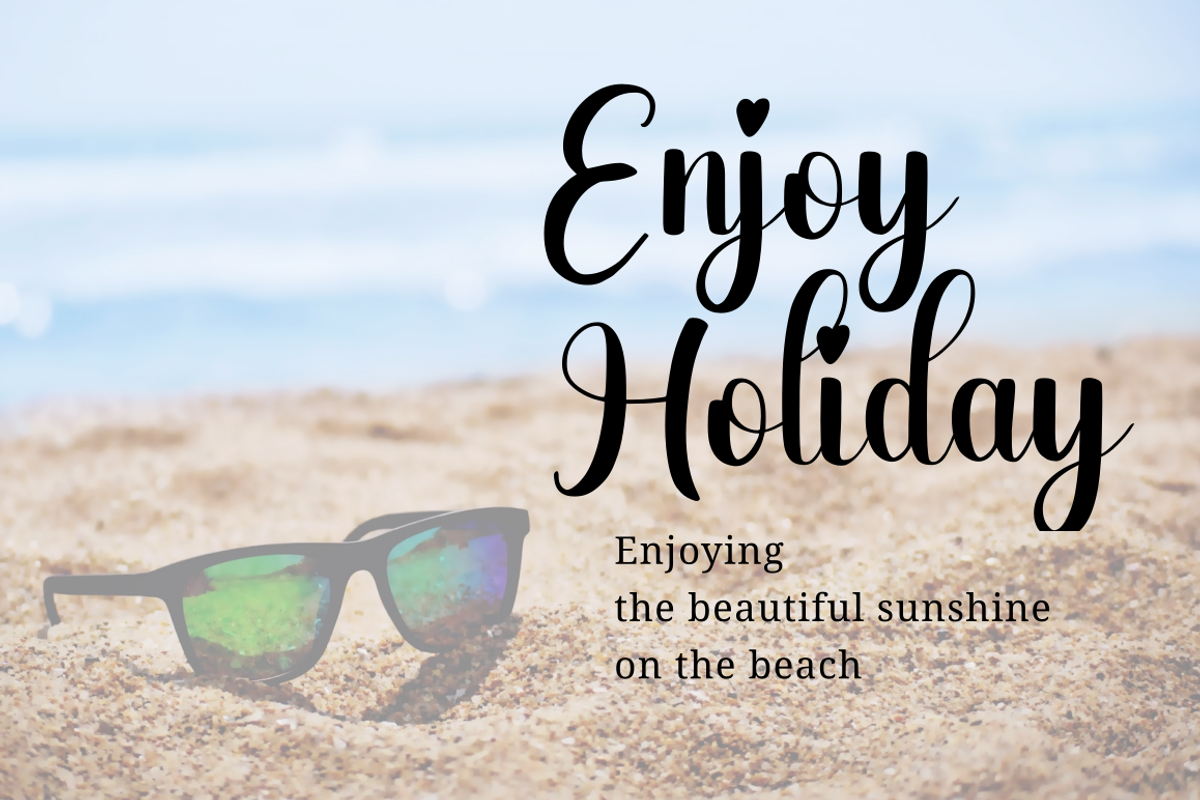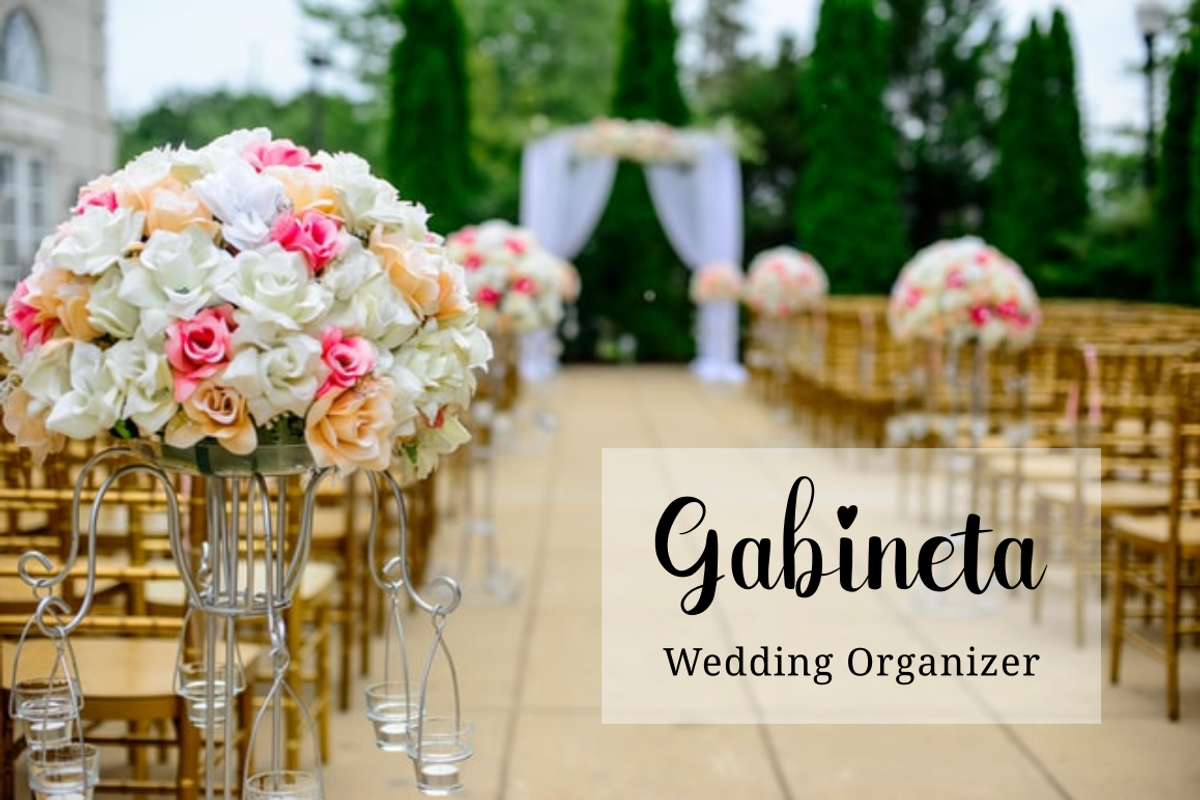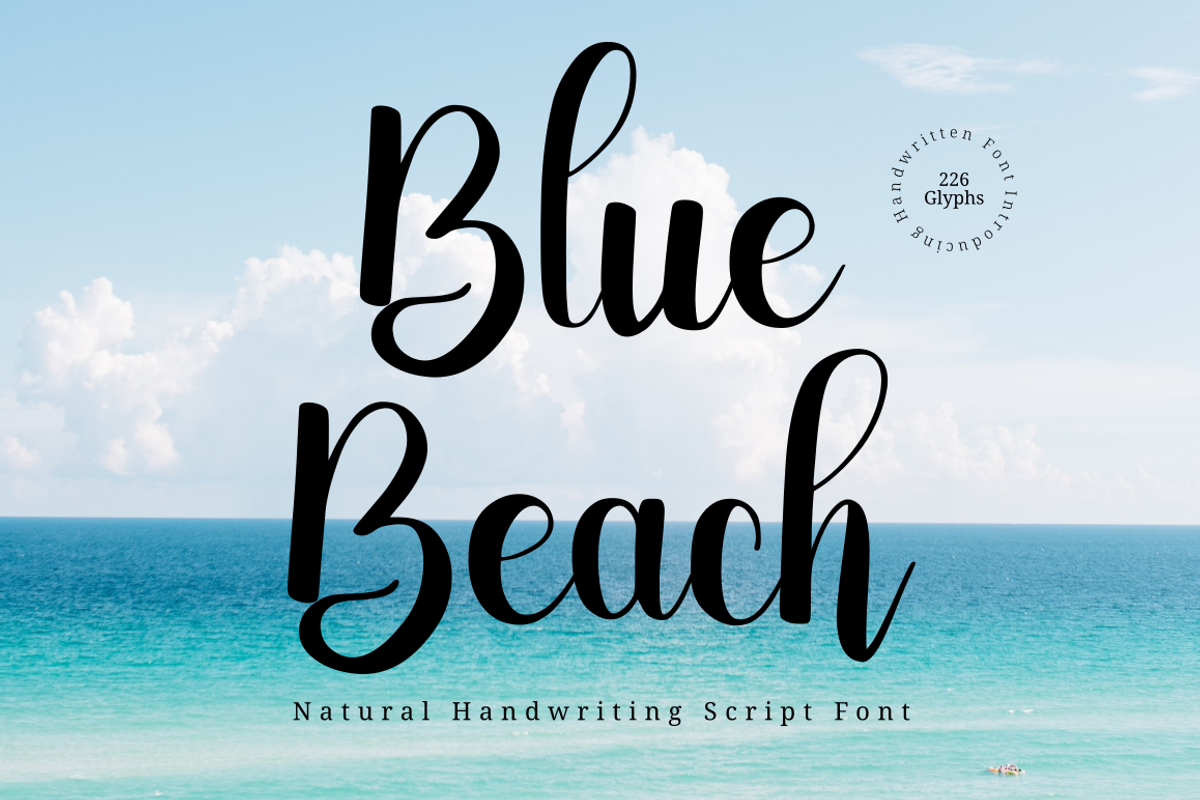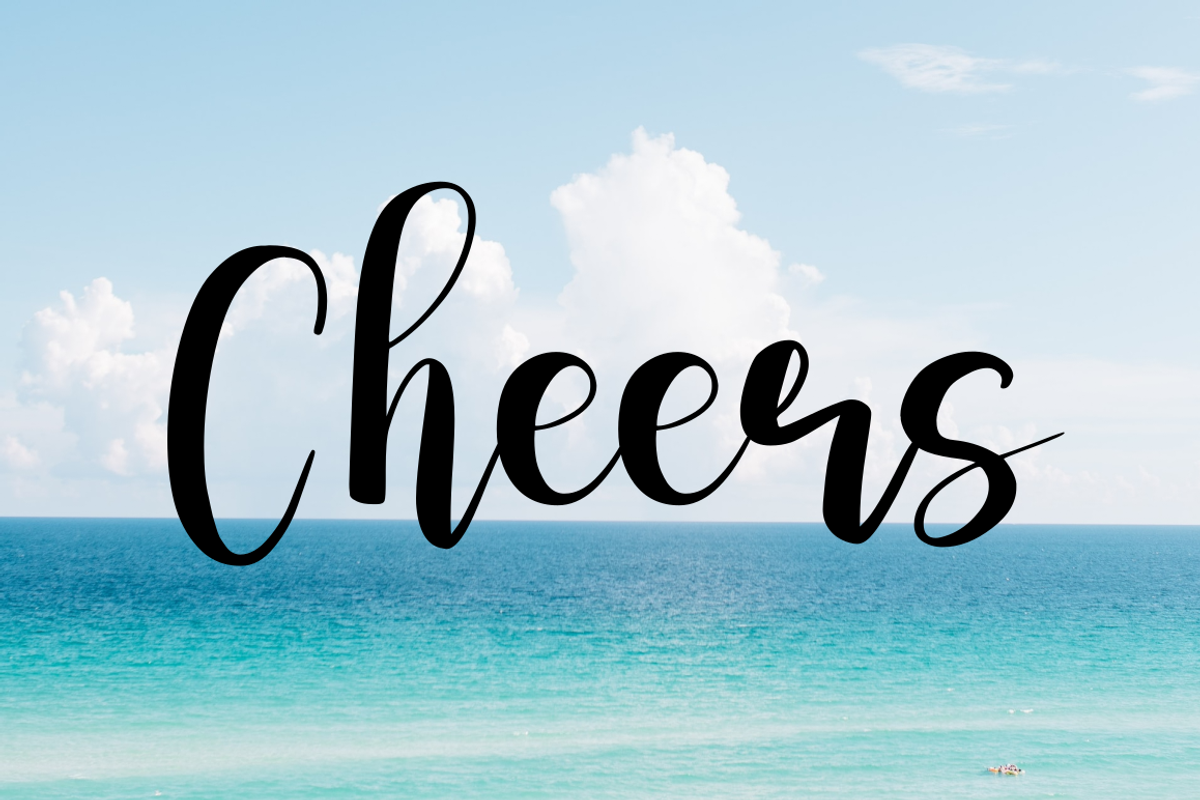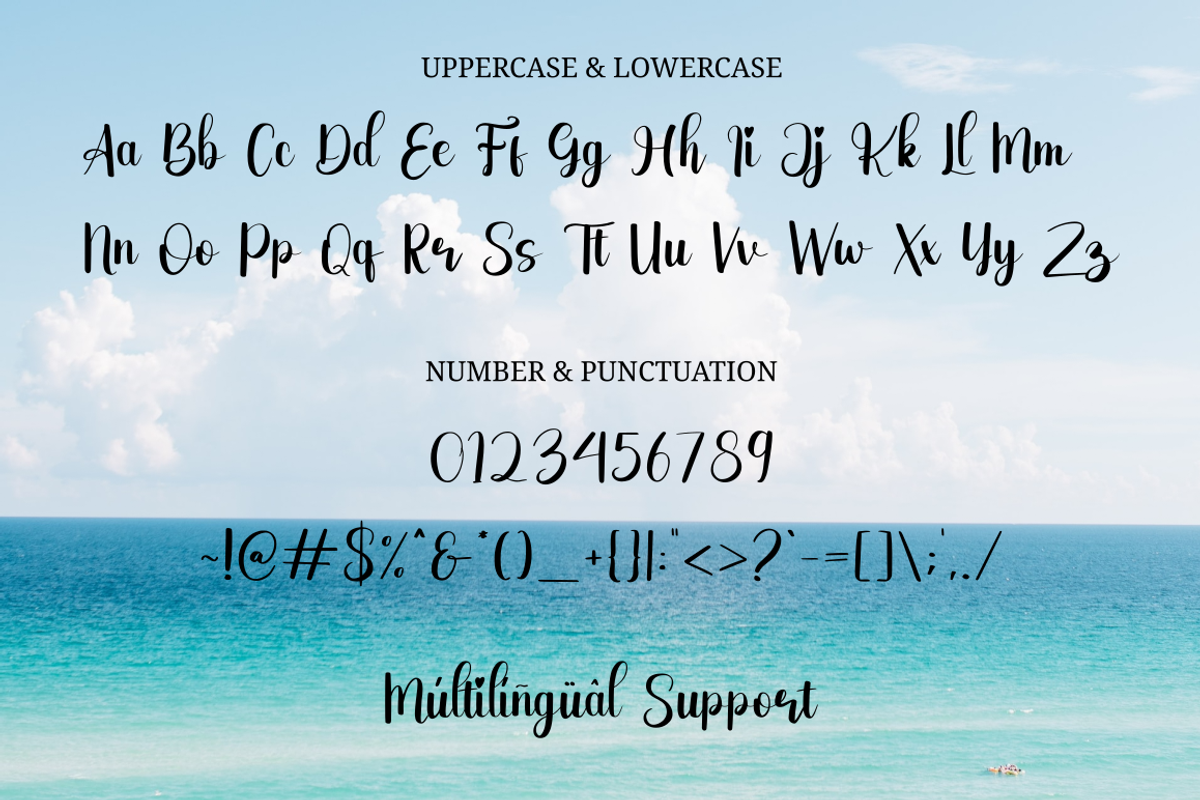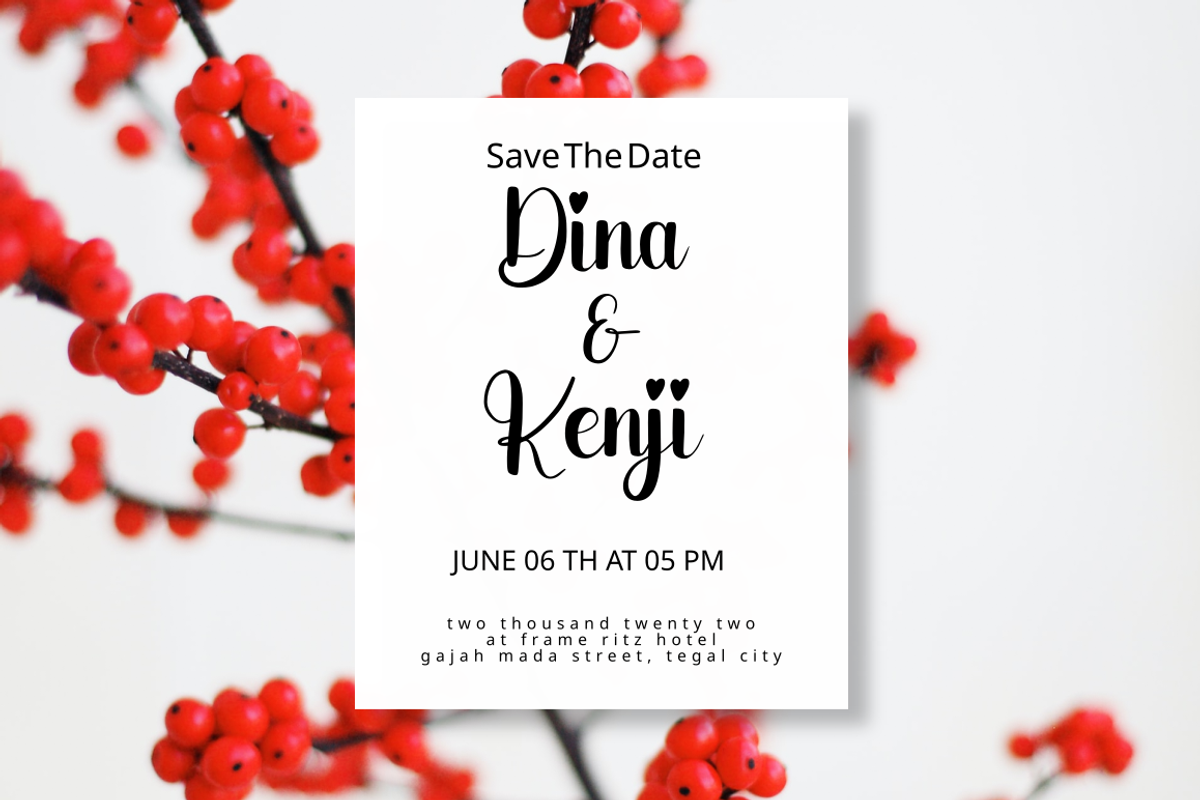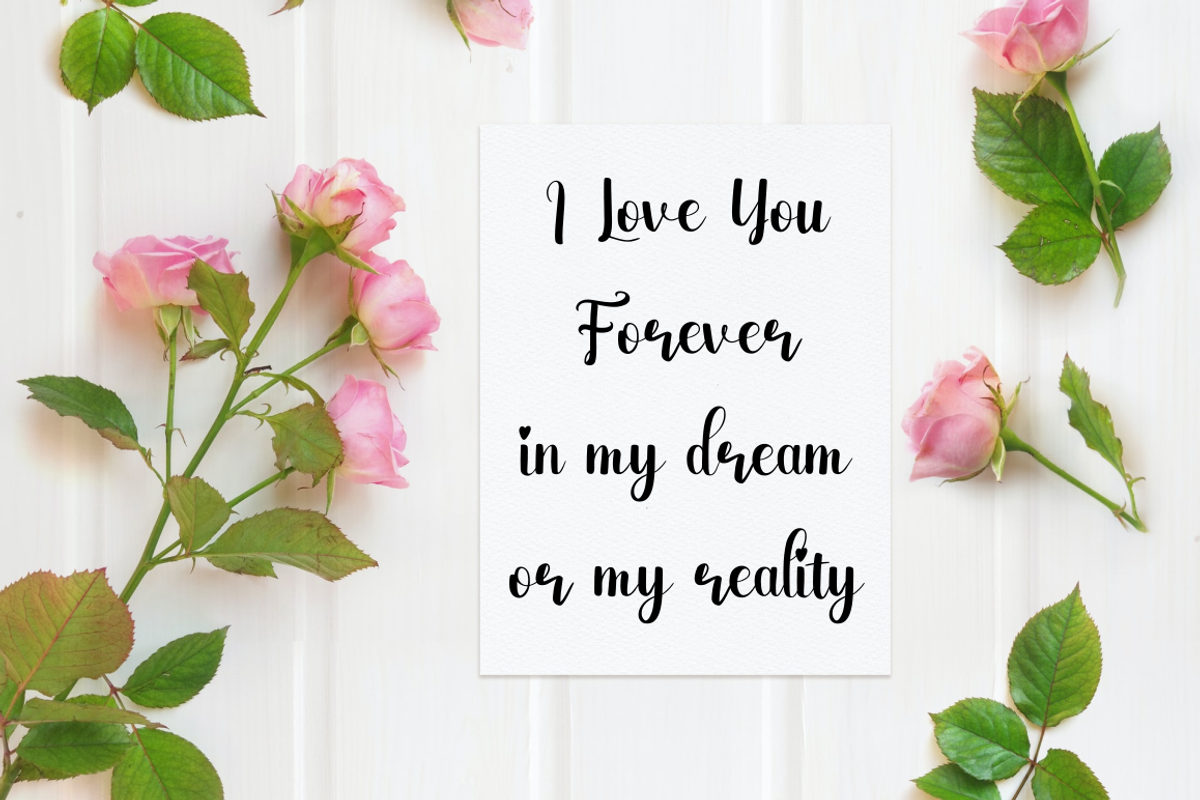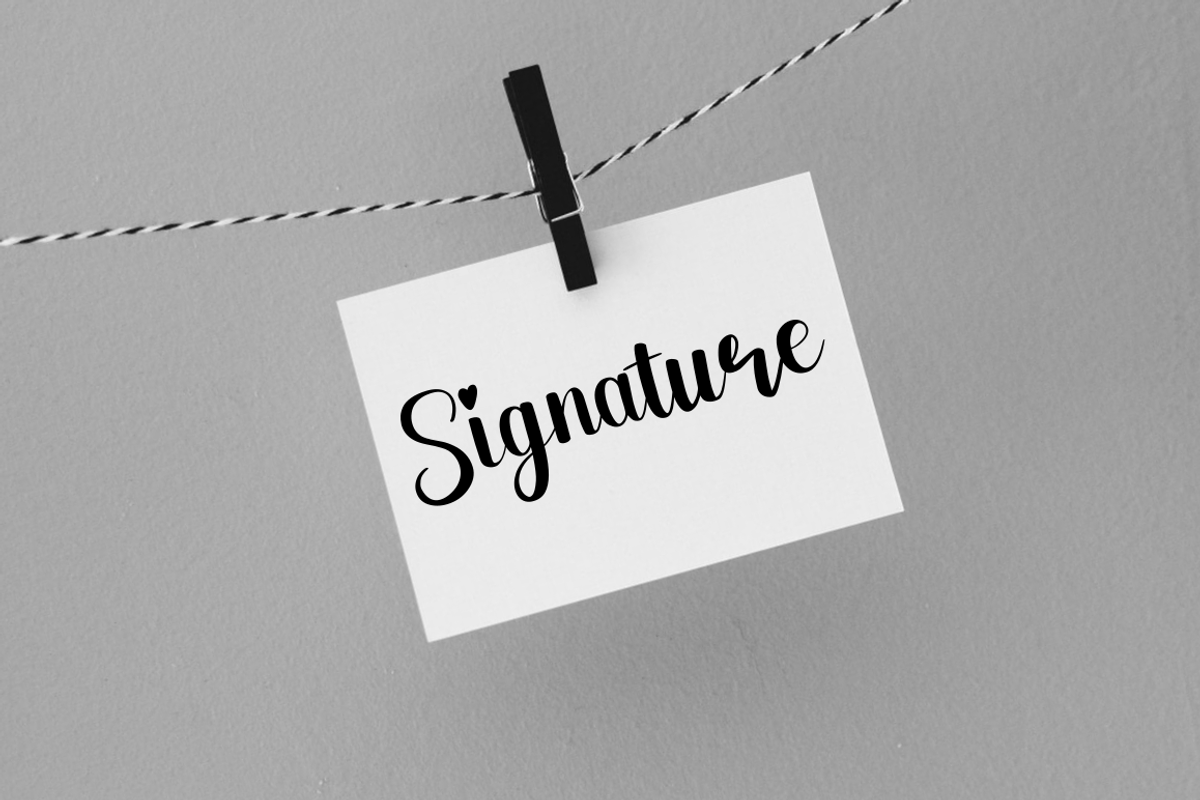
Blue Beach | Handwritten Font
Blue Beach Font is a funny handwritting Font, It embodies playfulness and authenticity and is the perfect choice for any children activity or school project. featuring Standard Character, support for 50+ languages
It is suitable for logotype, headline font, in corporate identity, brand identity, apparel industry, poster, music, movie, game, magazine, book, comic, cartoon, YouTube, Instagram, website, or any of your creative design projects.
- Support multilingual support